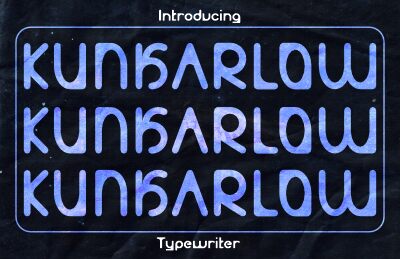
KUNKARLOW
Kunkarlow font, designed by Arif Purnomo, is a retro geometric display typeface with uniform width. This 1970s-influenced font holds rounded forms with smooth transitions between each letter. It has a vintage appeal and would be great for multiple project types.
Such include products like cards, professional branding, book covers, poster designs, magazine covers & layouts, typography purposes on social media platforms and more.